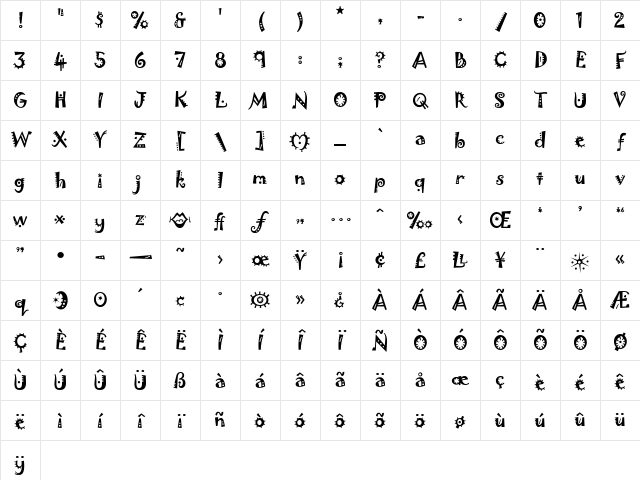
QK Zelda Regular Free Font
QK Zelda Regular
Design Context for QK Zelda
QK Zelda is a composed and adaptable typeface that performs quietly and consistently across a wide range of design contexts.
Pro Tip: Use QK Zelda in both headline and body roles to test its range before committing to a single application.